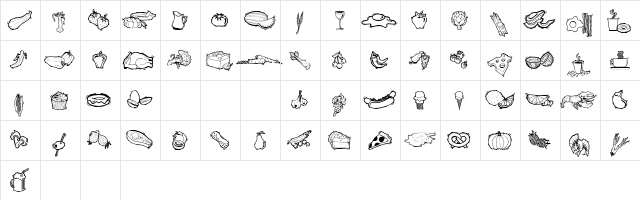
FoodFancyPics Regular
Design Context for FoodFancyPics Typeface
FoodFancyPics is a composed and adaptable typeface that performs quietly and consistently across a wide range of design contexts.